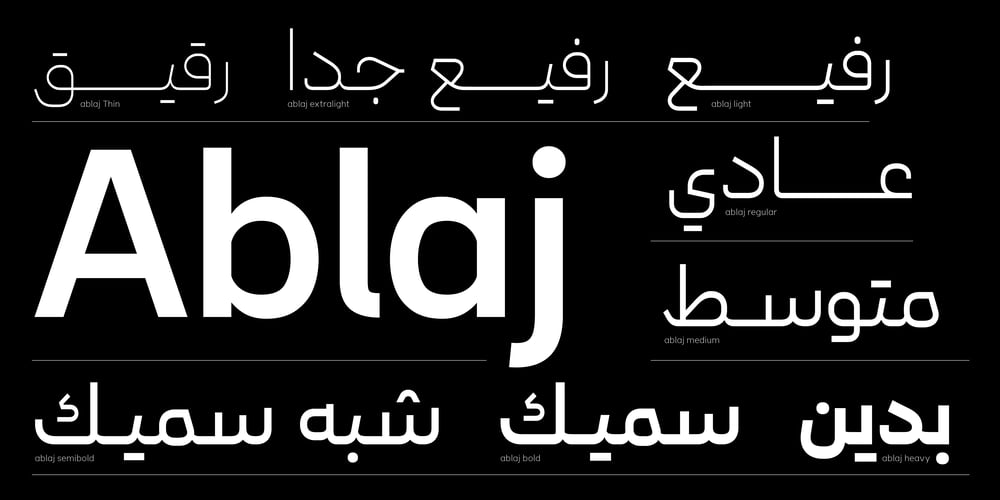
Ablaj Font Family was designed by Younes Alaboudi and published by MhrfType. Ablaj contains 7 styles and family package options. Ablaj, a typeface created for texts and titles, with a family of 8 weights.It is designed as a modern narrative of the ancient Kufic script by MhrfType.It is meticulously designed and continuously improved.The typeface supports a separate weight set, And the complete family is included in Ablaj Variable, containing all the glyphs and features.It provides designers with tools to create greater rhythm and design depth. Ablaj proportions are precisely aligned with the Sans assets, providing a perfect balance of positive and negative space.